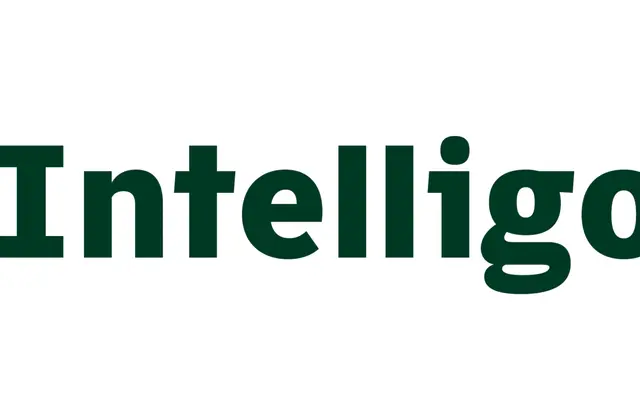
PTS Intelligo
A modern grotesque with clean geometry and an extensive set of OpenType alternates, covering over 200 Latin-based languages across eight weights.
Eight weights from ExtraLight to Black, each with a matching italic, give the family enough range for both text and display use across print and screen. Thirteen stylistic sets allow per-character switching between double-storey and single-storey forms for 'a' and 'g', alternate cuts of 'R', 'l', 't' and individual numeral variants, giving designers fine control over the typeface's personality. Discretionary ligature shortcuts for arrows, copyright and registered symbols, and the numero sign add practical utility for interface and editorial work.
Described as a modern grotesque with clean geometry, placing it within the geometric grotesque tradition. The presence of alternate single-storey 'a' and 'g' and alternate 'R' forms suggests a humanist influence within an otherwise geometric framework.